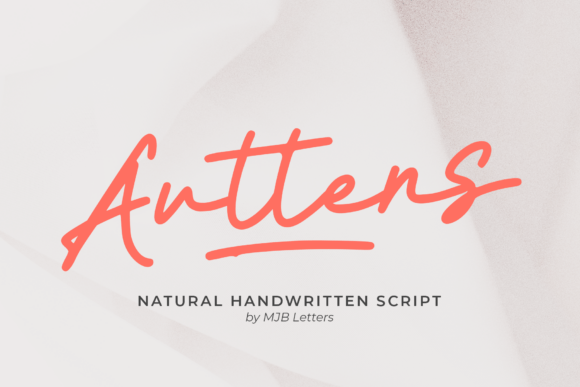
The Handwritten Charm of Auttens Font: A Designer’s Delight
I still remember the design project that led me to discover Auttens Font. I was working on a wedding stationery suite for a lovely couple, and I was struggling to find the perfect handwritten font that would capture the warmth and personality of their special day. The client wanted something that felt modern, yet timeless; elegant, yet effortless. After hours of scouring font libraries and testing various options, I stumbled upon Auttens Font, and it was love at first sight! ✨
A Honest Review: The Good, the Great, and the Quirks
So, what makes Auttens Font so special? Here’s what I love about it:
- ✅ Smooth strokes and organic letterforms that give it a natural, handwritten feel
- ✅ Highly versatile and works beautifully for both digital and print projects
- ✅ Effortless elegance that adds a touch of warmth and personality to any design
- ✅ Easy to read and understand, even at smaller font sizes
Of course, no font is perfect, and Auttens has a few minor quirks:
- ⚠️ Limited character set: While Auttens has a wide range of characters, it may not have every special character or glyph you need
- 🤔 Occasional kerning issues: As with any font, you may need to adjust kerning manually to achieve optimal results
The Story Behind Auttens Font
Auttens Font was designed with the goal of creating a natural, handwritten script font that would bring warmth and personality to designs. Inspired by real handwriting, Auttens features smooth strokes and organic letterforms that evoke a sense of effortless elegance. Whether you’re a designer, crafter, or creative hobbyist, Auttens Font is the perfect choice for adding a touch of authenticity and emotional character to your work.
| Font Name | Auttens Font |
| Author | MJB Letters |
| What makes Auttens Font unique? | Auttens Font features smooth strokes and organic letterforms that give it a natural, handwritten feel. |
| Is Auttens Font suitable for digital and print projects? | Absolutely! Auttens Font works beautifully for both digital and print projects, including social media content, wedding stationery, and more. |